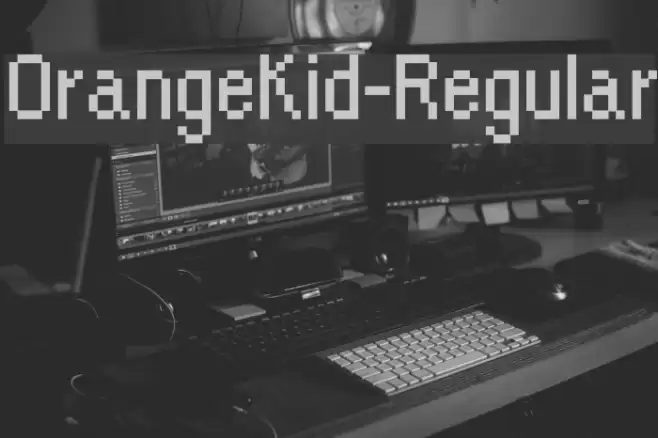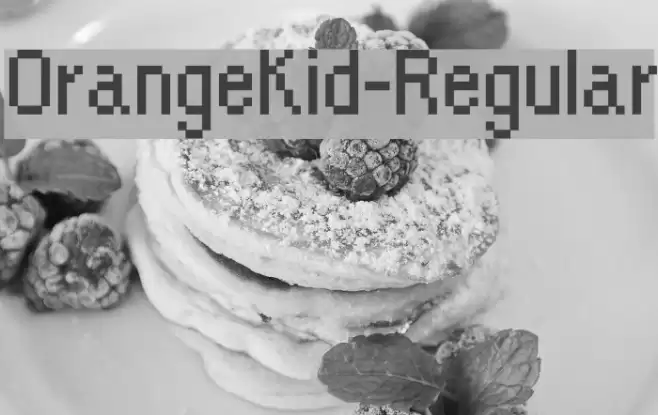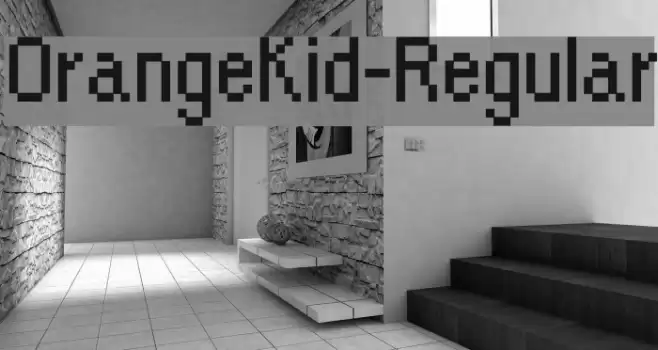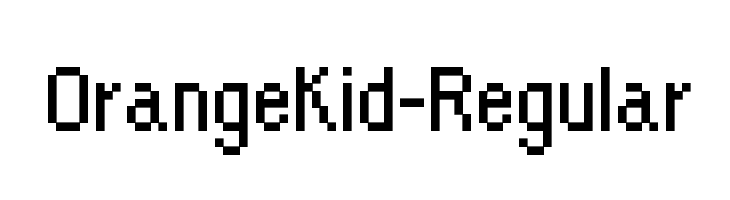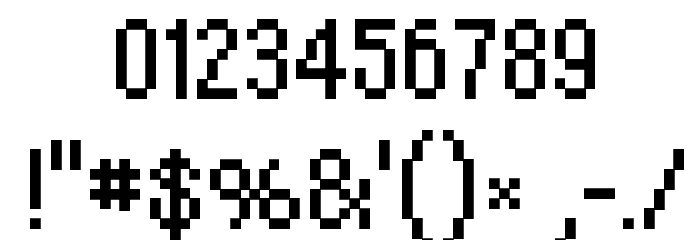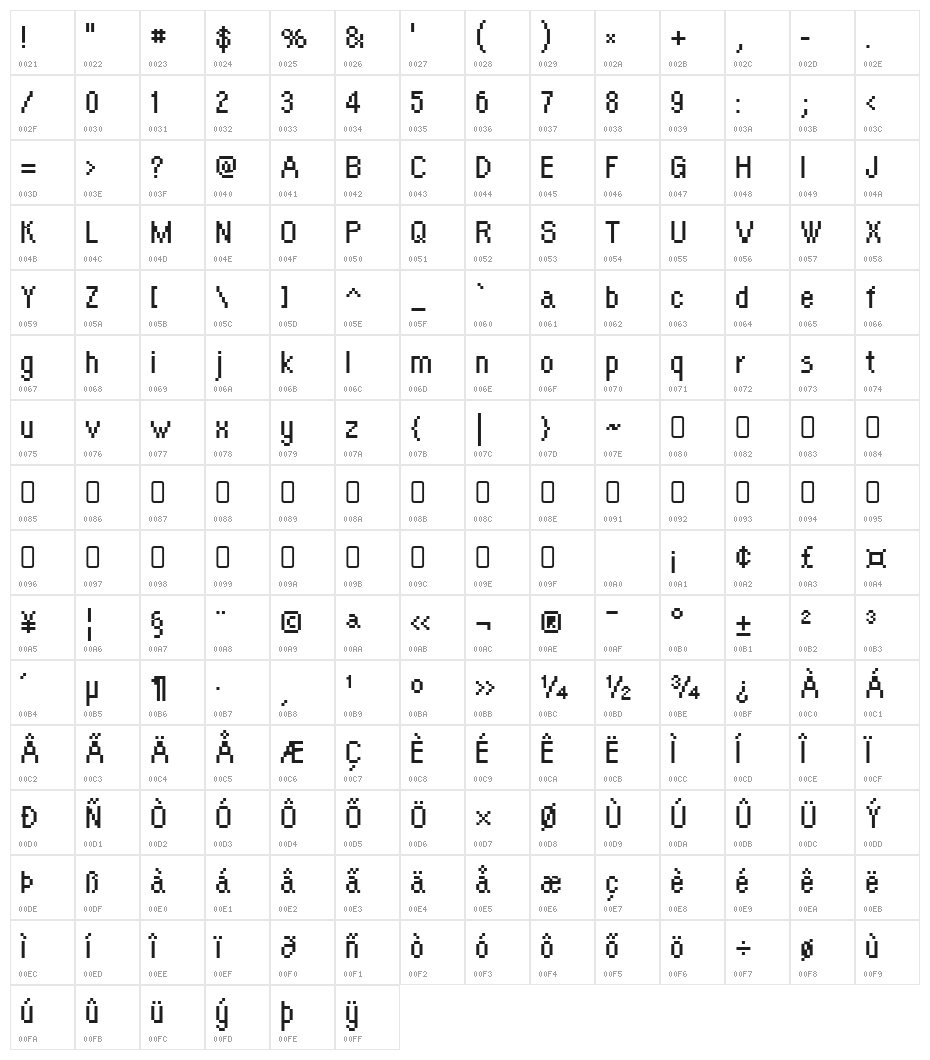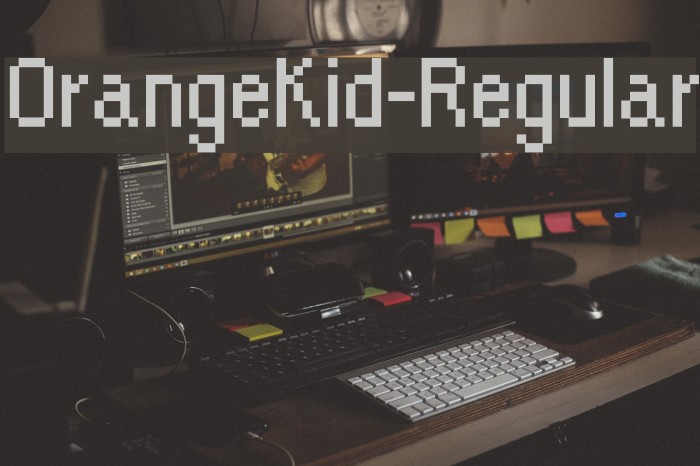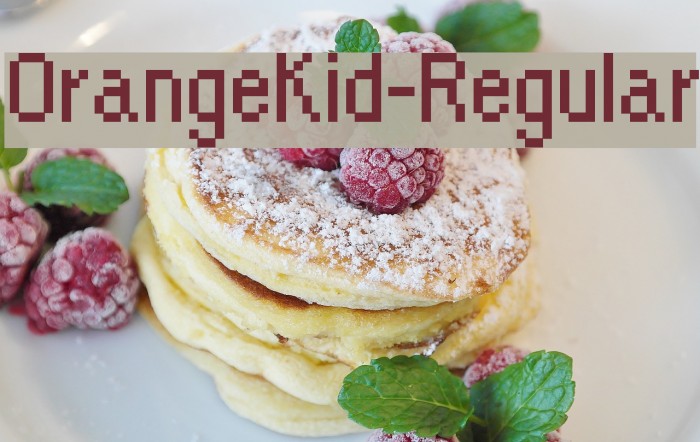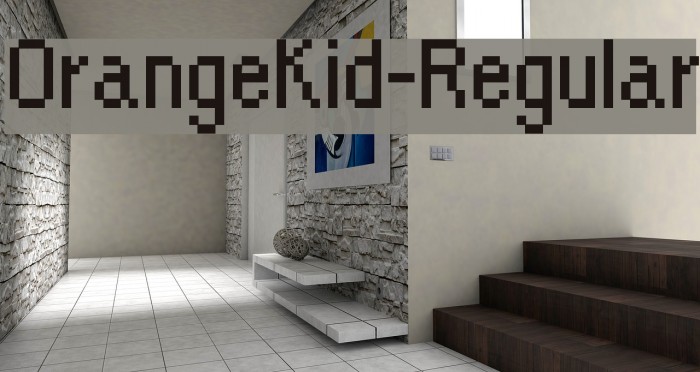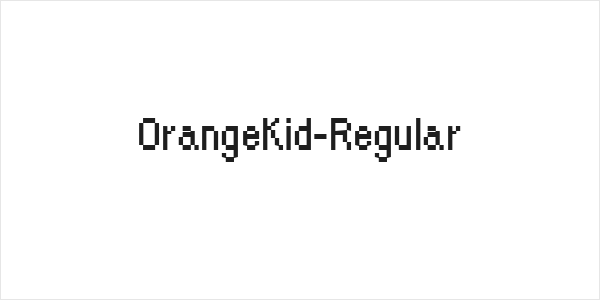
OrangeKid-Regular Font
OrangeKid-Regular Description
This font features a pixelated, blocky design reminiscent of early digital displays and retro video games. Each character is constructed with a uniform grid-like structure, giving it a distinctly geometric and mechanical appearance. The uppercase and lowercase letters maintain a consistent height, contributing to its monospaced feel. The numbers and special characters follow the same design principles, ensuring a cohesive look across all glyphs. This style is ideal for projects that aim to evoke nostalgia or a digital aesthetic.
A pixelated, blocky font with a retro digital style from Uncategorized fonts.
- Proposed Projects: Ideal for retro video game designs, digital-themed posters, and nostalgic branding projects.
- Overall Style: Retro, Digital
- Use Case: Logos, Headlines, Digital displays